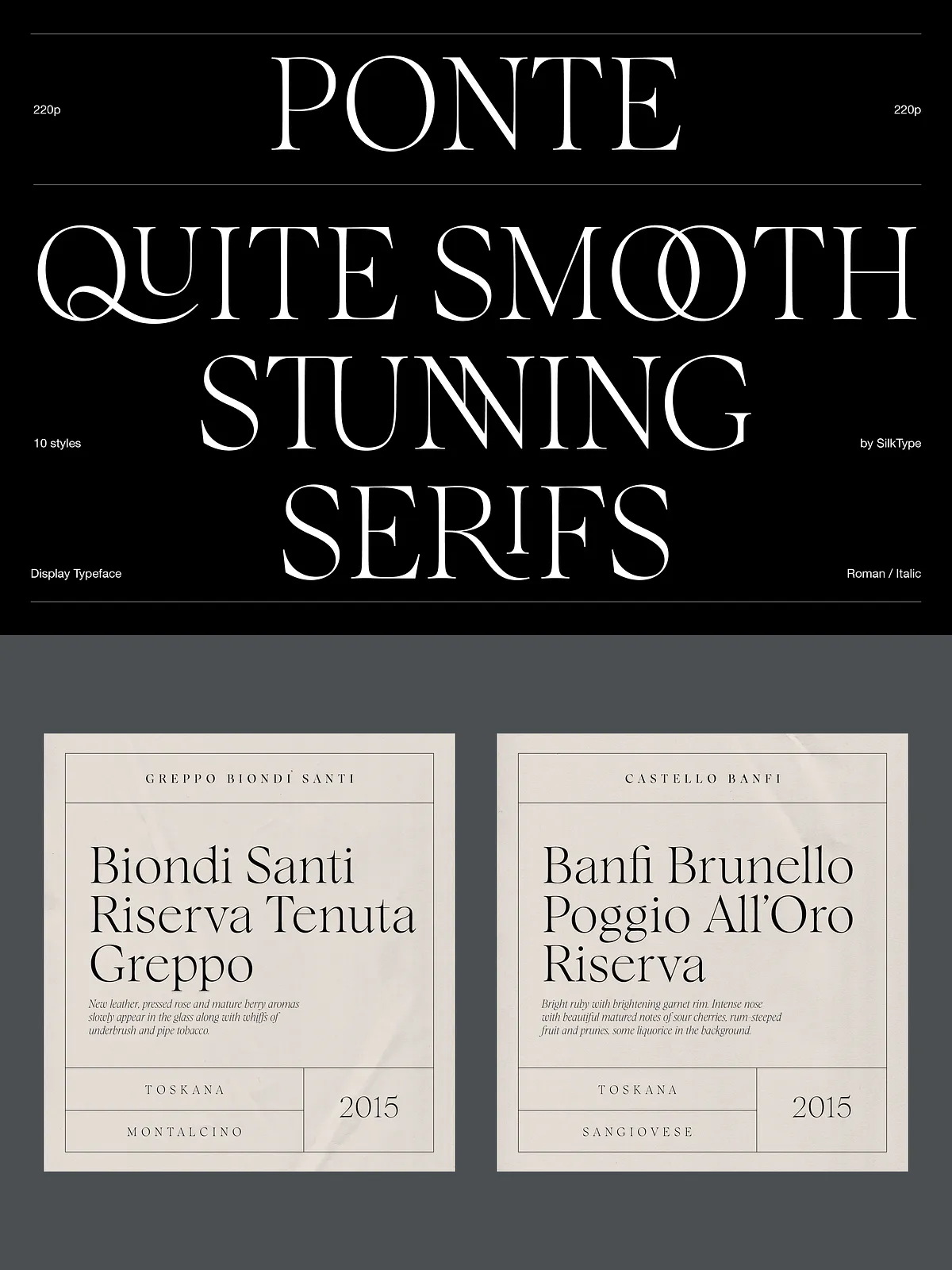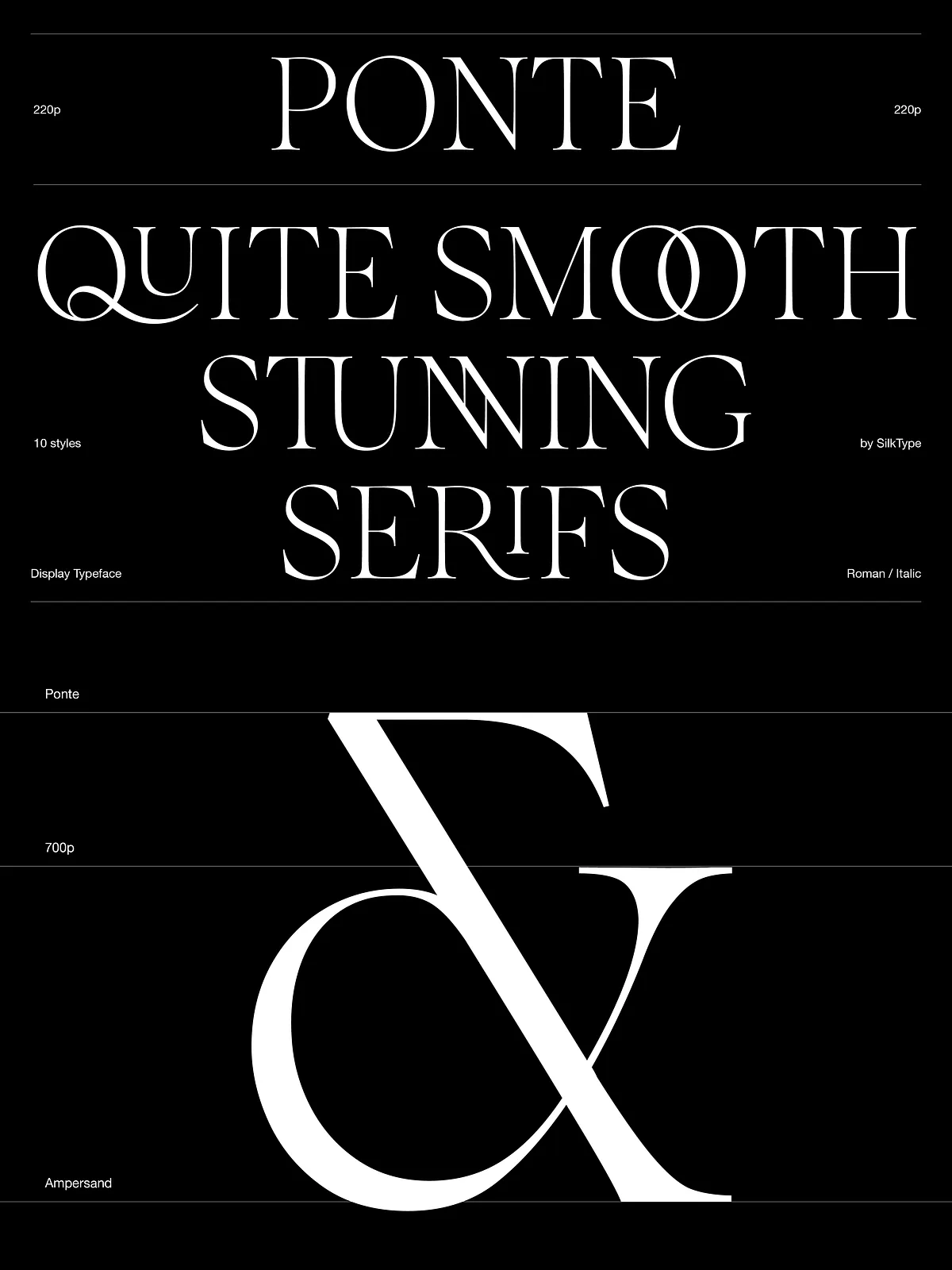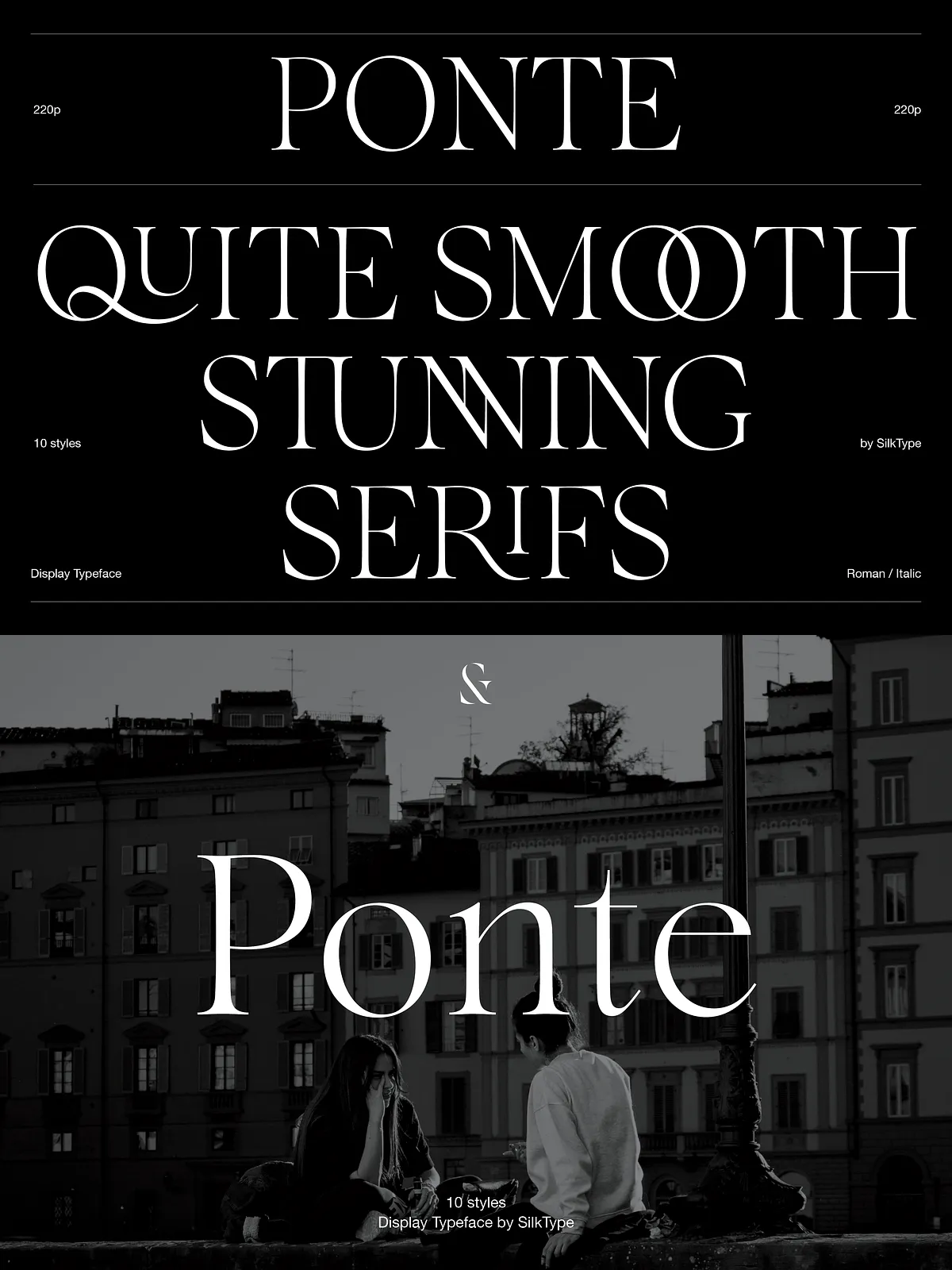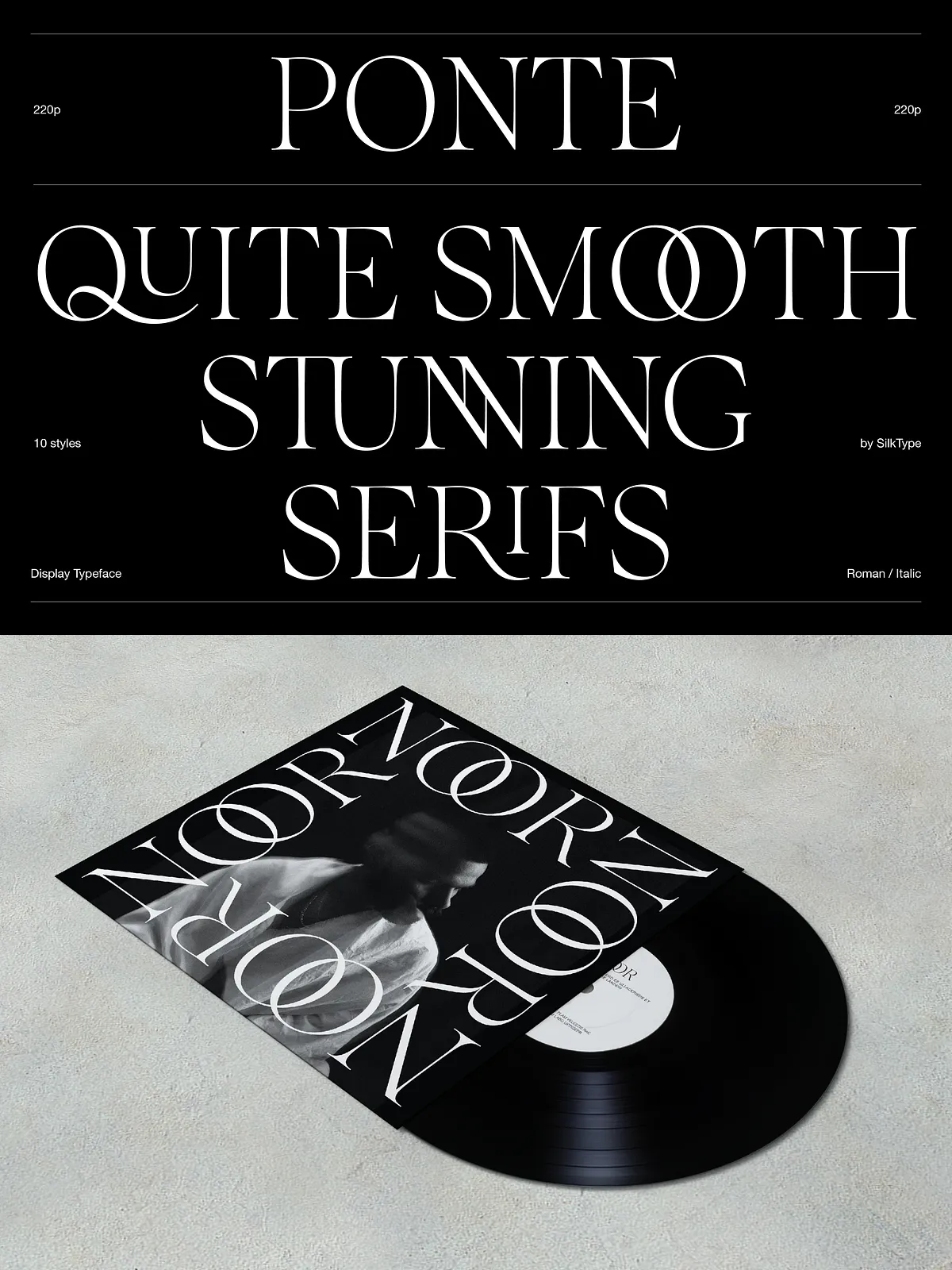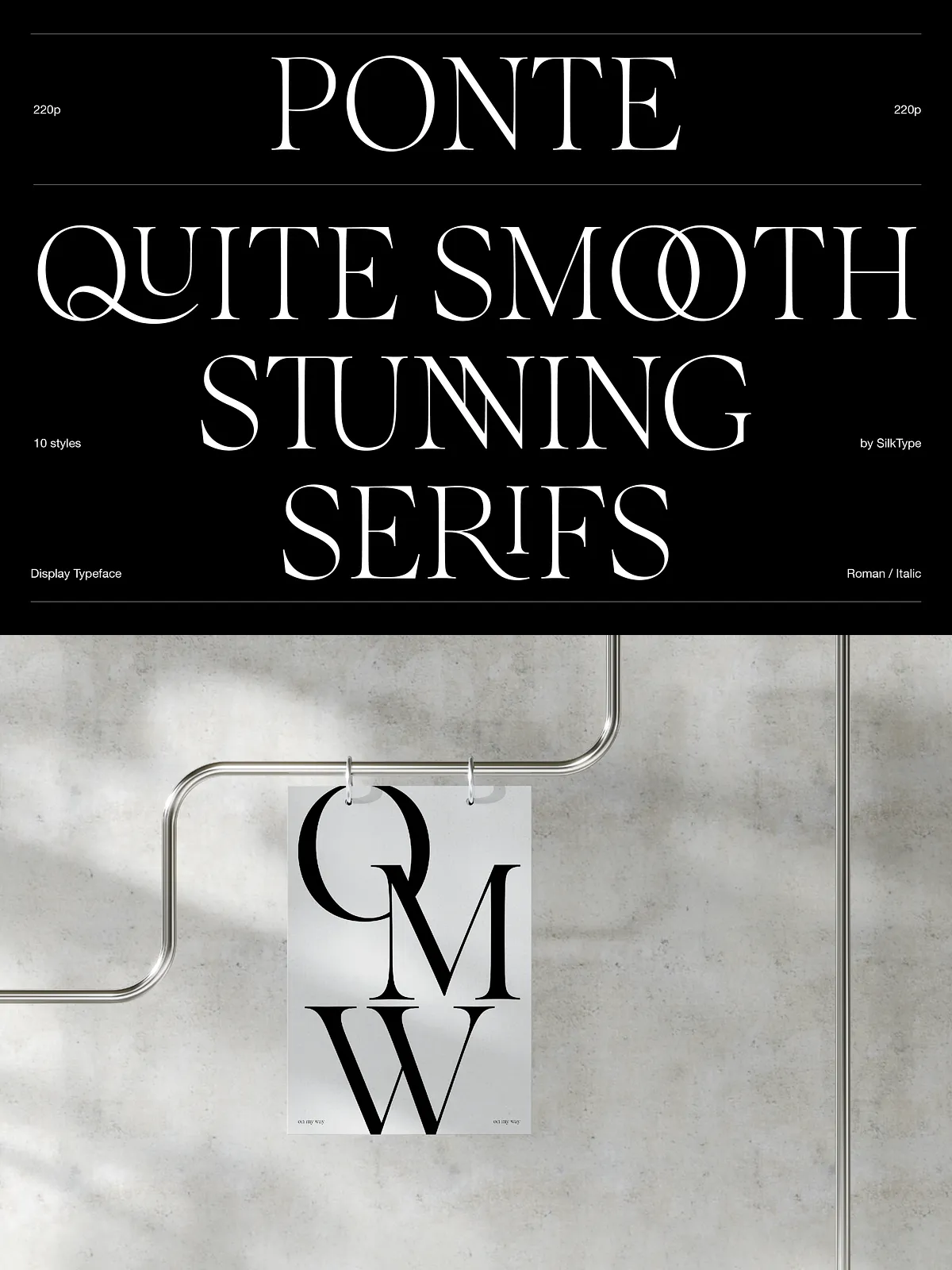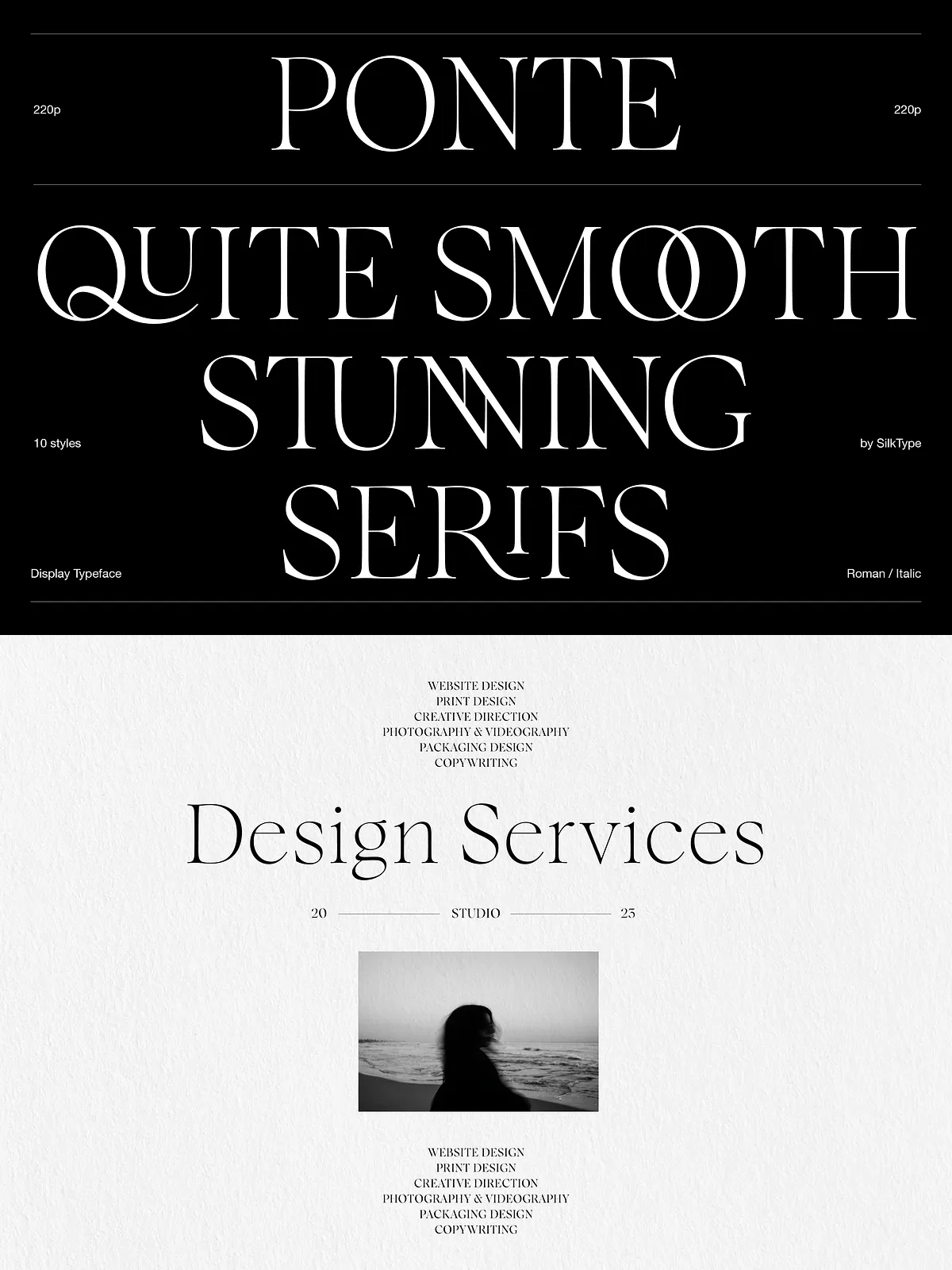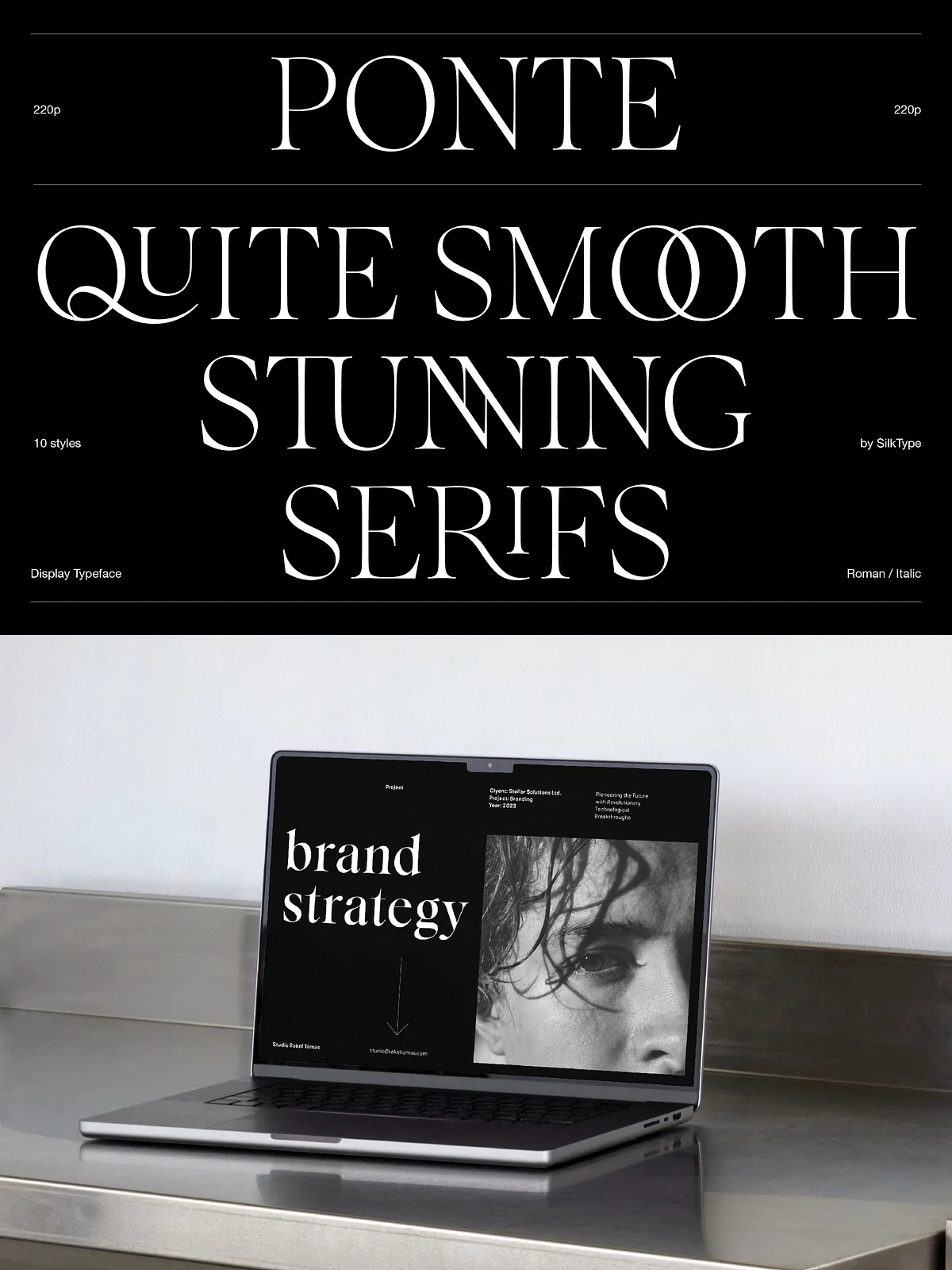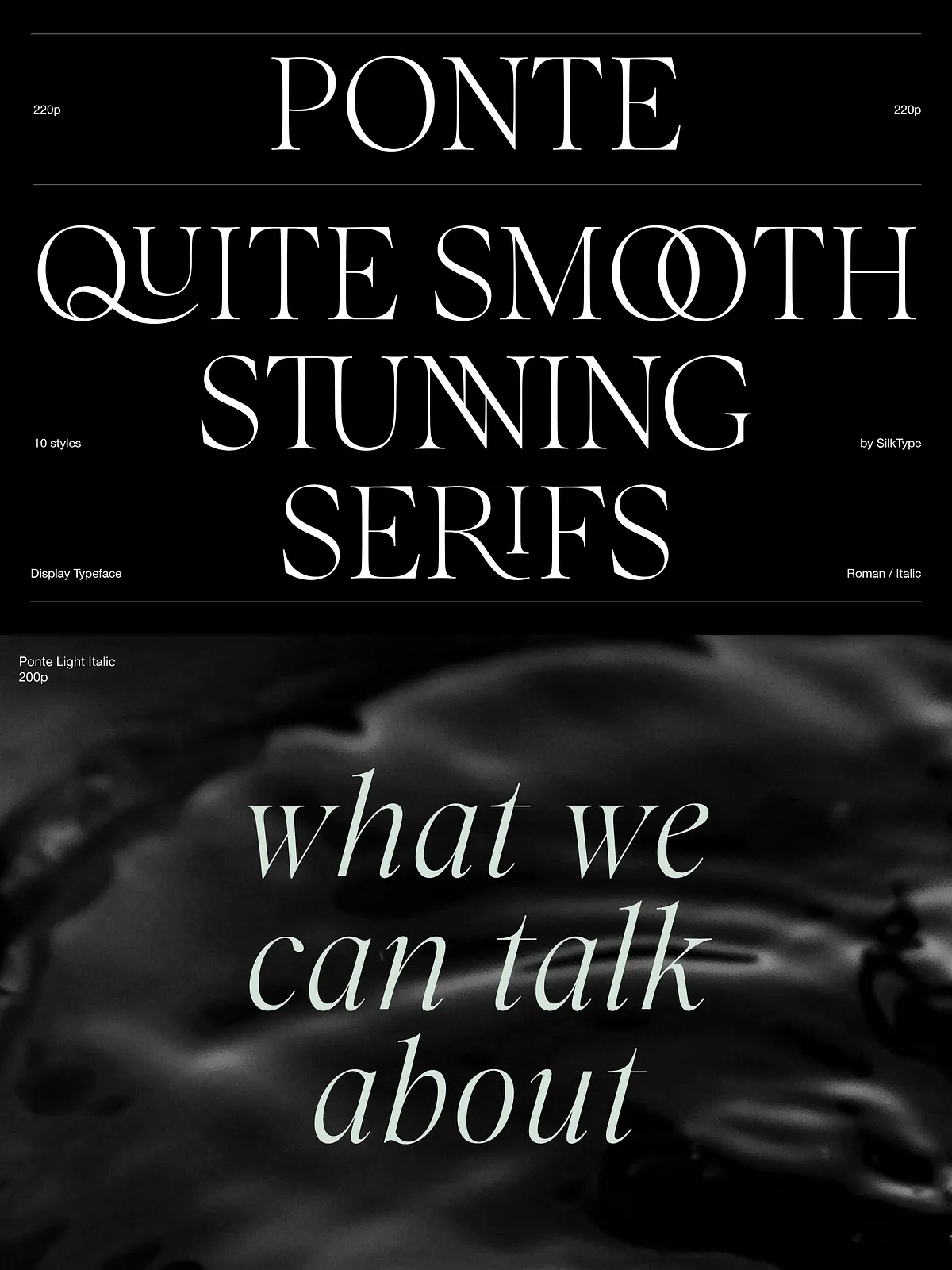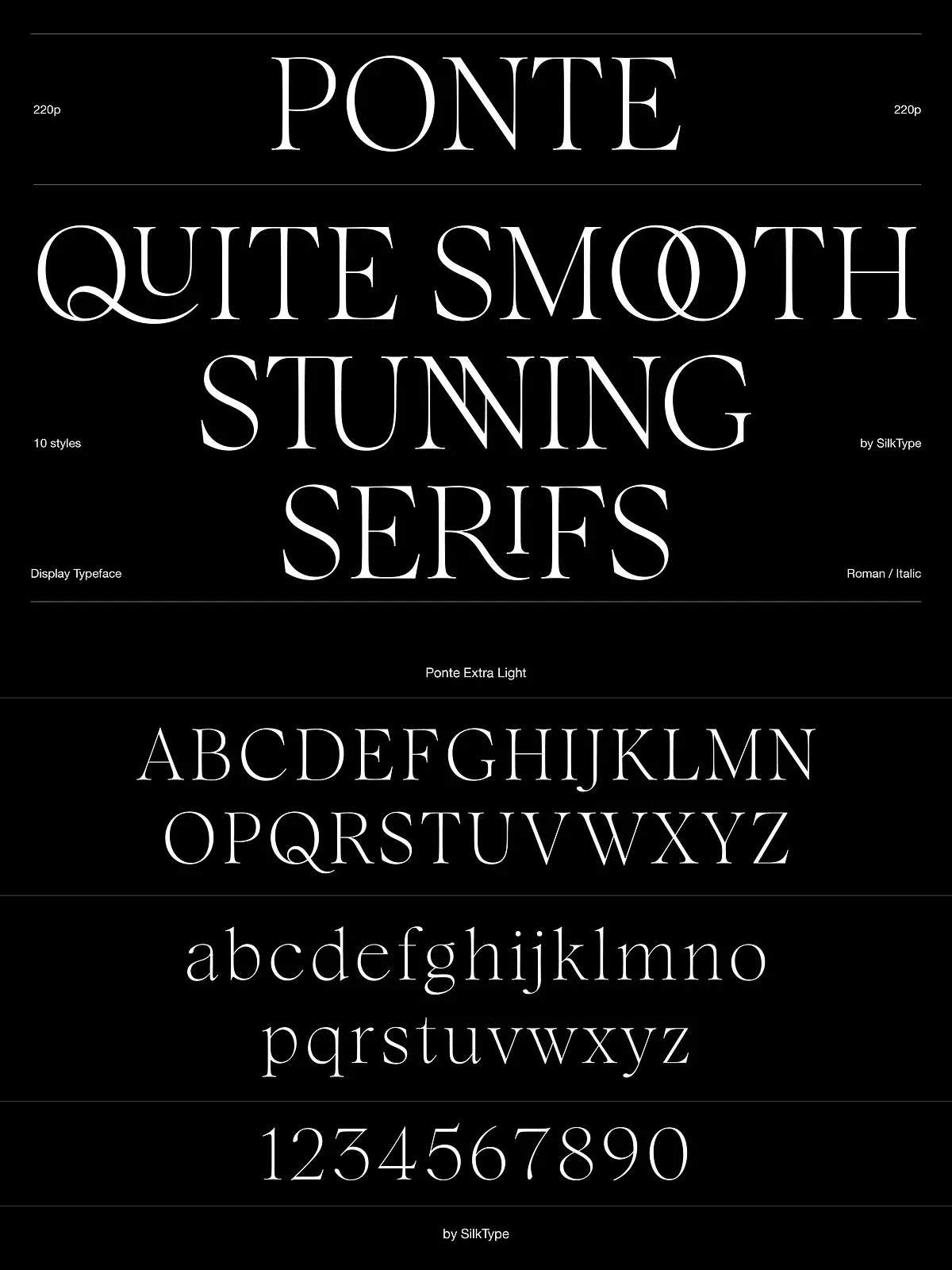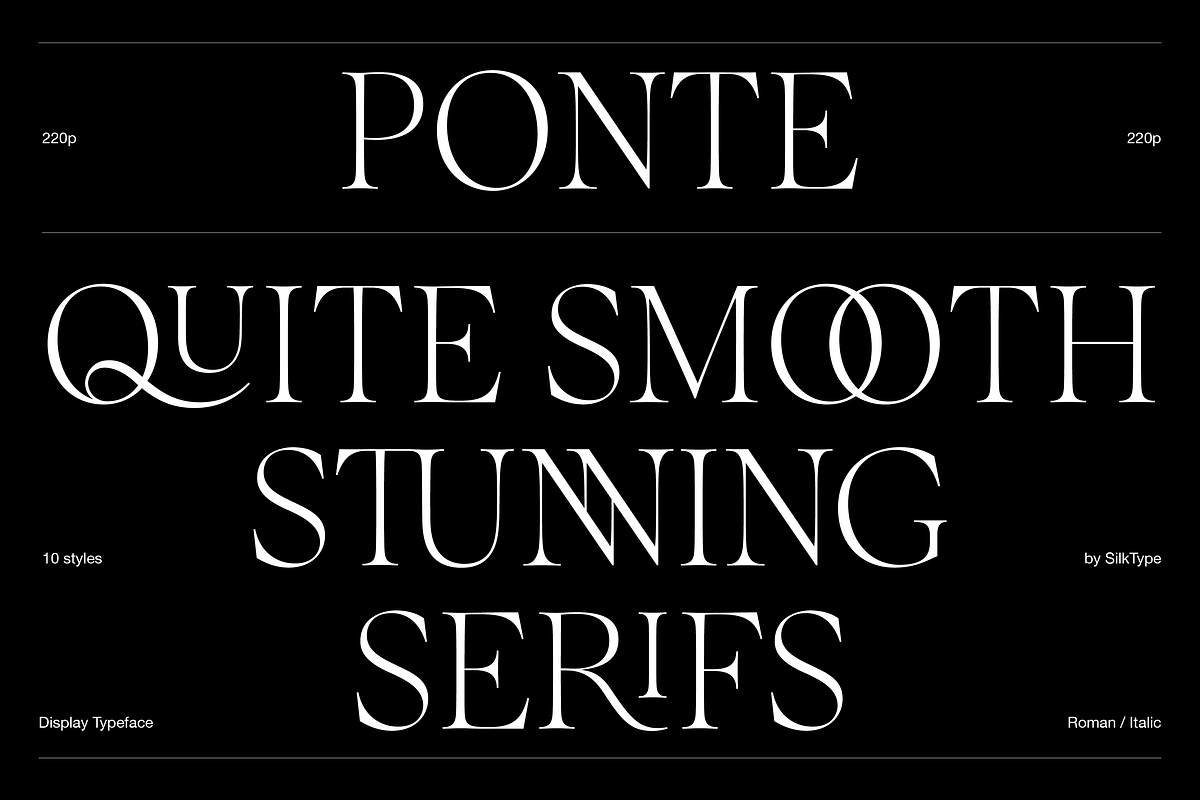
Elevate your designs with Ponte, a daring display typeface engineered to command attention. Built for impact, this high-contrast serif font combines refined elegance with striking visual presence, making it an ideal choice for headlines, branding, editorial layouts, and premium packaging. With its smooth serifs and dramatic weight variation, Ponte adds a touch of sophistication and modern drama to every project.
Design Power in 10 Dynamic Styles
Ponte isn’t just one font—it’s a comprehensive type family of 10 distinct styles, offering unparalleled creative freedom. Choose from five weights: Extra Light, Light, Regular, Medium, and Bold, each available in both roman and italic variants. Whether you need delicate nuance or maximum impact, Ponte adapts seamlessly to your design hierarchy.
Every font style is optimized for both digital and print applications, ensuring flawless rendering at any size—perfect for billboards, magazine covers, product labels, and luxury branding.
Unleash Artistic Expression with 80+ Decorative Ligatures
- Ponte features an extensive library of over 80 decorative ligatures, designed to transform basic text into custom, hand-crafted typography.
- These ligatures replace standard letter combinations (e.g., “th,” “fi,” “fl”) with unique, stylized glyphs that enhance rhythm and flow.
- Use them to create elegant transitions between letters, add visual interest to headlines, or craft distinctive wordmarks for logos and branding.
- Perfect for high-end fashion, editorial design, film posters, and any project that demands a premium, bespoke look.
Perfect for Sophisticated Design Applications
Thanks to the interplay of sharp contrast and smooth serifs, Ponte excels in professional, high-impact design scenarios where personality and clarity are non-negotiable.
Top Use Cases for Ponte Typeface
- Headlines & Titles: Make your first impression unforgettable with dramatic, attention-grabbing headlines for websites, magazines, and advertisements.
- Brand Identity & Logos: Create a memorable brand mark that exudes authority, luxury, and modernity.
- Editorial & Publishing: Ideal for chapter titles, cover text, and feature sections in design-forward publications.
- Luxury Product Packaging: Add exclusivity to packaging for cosmetics, spirits, artisan goods, and high-end retail.
- Event & Film Posters: Set the tone for premieres, concerts, exhibitions, and cultural events with bold, expressive typography.
- Minimalist Design Contrasts: Pair Ponte with clean sans-serif fonts for a powerful visual contrast that highlights your message.
Technical Excellence Meets Artistic Flair
Ponte is built for performance and precision. Each weight is carefully crafted to maintain legibility and consistency across different screen sizes and print resolutions. The font supports a wide range of languages and special characters, ensuring it works across global design needs.
Key Features You Can Rely On
- High-contrast structure for sharp visual definition
- Smooth, flowing serifs for refined elegance
- Full support for OpenType features: stylistic sets, contextually alternate characters, and ligature substitution
Bring Your Vision to Life with Ponte
Don’t settle for generic typefaces that blend into the background. With Ponte, your typography becomes a core part of the design narrative—bold, intentional, and deeply expressive.
When your message matters, your typeface should too. Ponte delivers the authority, grace, and visual power needed to stand out in a crowded digital and physical landscape.